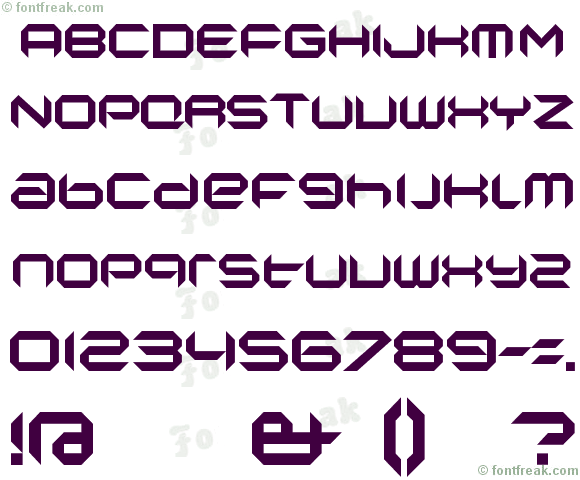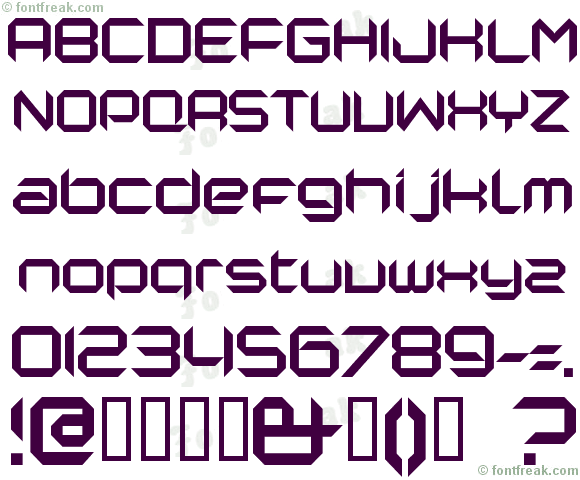
Nano
Nano low
The Nano font, designed by Axel Pfaender in 1999, is an exceptional sans-serif typeface that captures a modern and minimalist aesthetic. With its clean lines and geometric forms, Nano embodies a contemporary approach to typography, making it a versatile choice for a variety of design projects. The font features a consistent stroke weight, which contributes to its legibility and clarity, while the balanced spacing between characters enhances overall readability.
Visually, Nano stands out with its understated elegance. The lack of excessive decorative elements allows it to blend seamlessly into various design contexts. Its straightforward design makes it particularly suitable for headings and body text alike, ensuring a harmonious appearance across different mediums.
This font is ideal for a range of applications. Graphic designers will find it perfect for creating sleek branding materials, while small business owners can use it effectively in marketing collateral such as flyers and brochures. Content creators may also appreciate Nano for its clean look in digital publications, blog headers, or even social media graphics. Additionally, it lends itself well to creating modern restaurant menus that demand attention without overwhelming the customer.
What truly sets the Nano font apart is its ability to maintain a balance between simplicity and sophistication. Its modern characteristics, combined with its free availability, make the Nano font a compelling choice for anyone seeking to enhance their design work. Experience the ease of use and stylish appeal with a Nano font free download today.